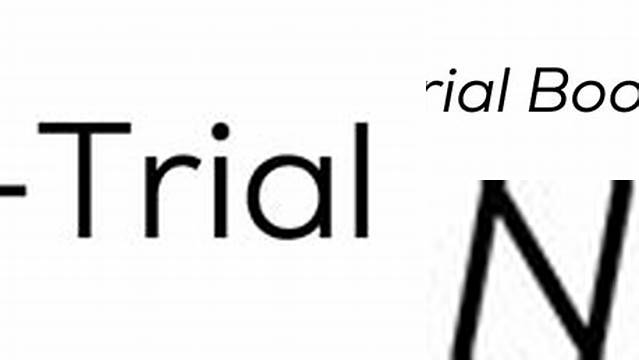
1. What is Nexa Trial Book Font?
So, what exactly is the Nexa Trial Book Font? Well, it's a fantastic typeface that's part of the larger Nexa family. This font is known for its clean, modern, and readable design, making it a popular choice for a wide range of applications. Think logos, websites, posters, and even book layouts – the Nexa Trial Book Font can handle it all. It’s a versatile font that blends professionalism with a touch of contemporary flair. The 'Trial' version typically means it's a free version that comes with some limitations, usually in terms of the character set or licensing. However, it's a great way to test out the font and see if it fits your needs before investing in the full version. Nexa Trial Book Font has a balanced design, offering a smooth reading experience. It's designed with simplicity in mind, making it legible even at smaller sizes. This is particularly useful for projects where readability is key, such as body text in websites or printed materials. This font is designed to be visually appealing without being overly decorative, making it suitable for a professional and modern look. The geometric structure provides a clean and precise appearance, ensuring the font remains timeless and versatile. Its neutral aesthetic allows it to blend seamlessly with various design styles, from corporate branding to creative projects. For designers, this means less time tweaking font settings and more time focusing on overall design coherence. The Nexa Trial Book Font stands out as a high-quality option that doesn't compromise on style or functionality.
2. Key Features of Nexa Trial Book
Let's break down some of the key features that make the Nexa Trial Book Font so appealing. First off, it boasts excellent readability. The clean lines and balanced letterforms ensure that your text is easy to read, whether it's on a screen or in print. This makes it perfect for body text, headlines, and everything in between. Another standout feature is its modern aesthetic. Nexa Trial Book has a contemporary vibe that works well with a variety of design styles. It’s not too flashy, but it definitely has a polished look that can elevate your projects. The 'Trial' version, while limited compared to the full version, still offers a substantial character set. You'll typically find uppercase and lowercase letters, numbers, and basic punctuation. This makes it versatile enough for many projects, allowing you to get a feel for the font's capabilities before committing to a purchase. Beyond its visual attributes, Nexa Trial Book is also designed for practical use. The spacing and kerning are carefully considered, which means the letters sit well together, creating a harmonious and professional look. This attention to detail is what sets Nexa apart from other fonts. Nexa Trial Book is highly adaptable, making it suitable for branding, editorial design, and digital applications. Its consistent design across different weights and styles within the Nexa family ensures a cohesive look throughout your project. The font's neutral yet stylish appearance helps maintain clarity and visual appeal, regardless of the context. Whether you're designing a website, creating a poster, or laying out a book, the key features of Nexa Trial Book make it a valuable asset in your font library. Its modern aesthetic and practical design elements make it a solid choice for a range of design needs.
8. Nexa Trial Book for Web Design
The Nexa Trial Book Font is not just for print; it's also a great choice for web design. A clean and readable font can significantly improve the user experience on your website. When using Nexa Trial Book on the web, you'll want to consider web font formats. The most common formats are WOFF (Web Open Font Format) and WOFF2, which are optimized for web use and ensure the font loads quickly. To use Nexa Trial Book on your website, you'll need to embed the font using CSS. You can do this by either hosting the font files on your own server or using a web font service like Google Fonts or Adobe Fonts. However, keep in mind that the Trial version may not be allowed for web embedding, so be sure to check the license agreement. If you're allowed to use the Trial version on the web, you can add the font to your CSS using the @font-face rule. This rule defines the font family, source files, and other properties needed to display the font correctly. Nexa Trial Book for web design offers a modern and legible option for your website's typography. Whether you're designing headers, body text, or navigation menus, this font can help create a professional and user-friendly experience. Always ensure you comply with the font's license agreement, particularly when using trial versions online. By properly embedding the font and optimizing it for web use, you can enhance your website’s visual appeal and readability.
9. Nexa Trial Book for Print Design
If you're working on print projects, the Nexa Trial Book Font is an excellent choice. Its clean lines and readability make it suitable for various print materials, such as brochures, posters, and books. When using Nexa Trial Book for print, ensure that you have a high-resolution version of the font. This will prevent the font from appearing pixelated or blurry in your printed materials. Typically, font files with the .otf extension are preferred for print projects because they offer better quality and support for advanced typographic features. Before sending your design to the printer, it's crucial to embed the fonts in your document or convert the text to outlines. Embedding the fonts ensures that the printer will have access to the correct font files, while converting the text to outlines eliminates the need for the font files altogether. This helps prevent font substitution issues, where the printer uses a different font if the original one is not available. Nexa Trial Book for print design provides a reliable and stylish option for your printed materials. Its readability and modern aesthetic make it versatile for a wide range of projects. By using high-resolution font files and properly embedding or outlining the fonts, you can ensure your printed designs look professional and polished.